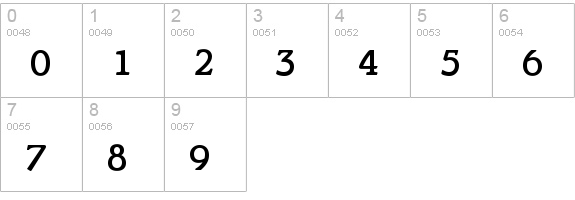
AT Bramley Medium Font Details
AT Bramley Medium is a balanced, medium-weight variant in the AT typeface family \xE2\x80\x94 well suited to sub-headlines, navigation, and balanced editorial work.
AT Bramley Medium is a versatile and elegant serif font that exudes sophistication and style. With its balanced proportions and clean lines, this font is perfect for a wide range of design projects, from branding to editorial design. The medium weight strikes the perfect balance between being substantial yet not overpowering, making it ideal for both body text and headlines. What makes AT Bramley Medium even more appealing is that it is available for free download at FontsMarket.com. This means that you can easily access this high-quality font without any cost, making it a valuable addition to your font library. Whether you're working on a print project or a digital design, AT Bramley Medium is sure to elevate your work with its timeless appeal and professional aesthetic.